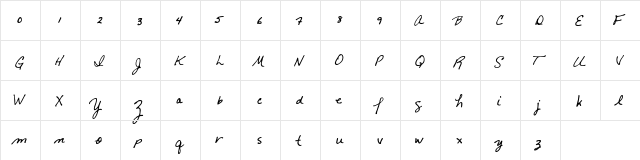
FG Cindywrite Regular
| Foundry | Cindy fonted by Font Garden |
| Designer | Ellinor Rapp |
Design Context for FG Cindywrite Typeface
FG Cindywrite is a composed and adaptable typeface that performs quietly and consistently across a wide range of design contexts.